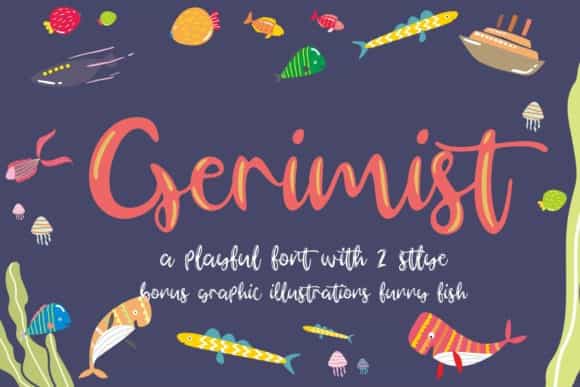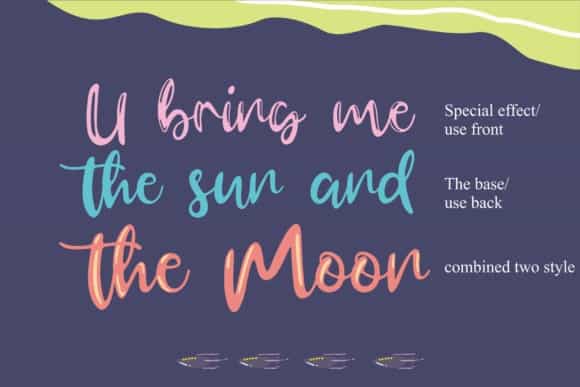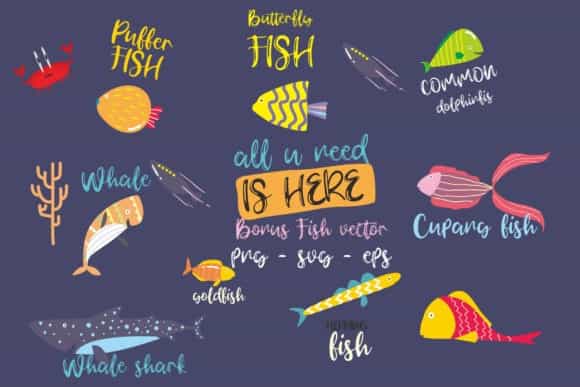
Gerimist is a brush font that was handwritten script. The original flow and style of the font makes it just right for all kinds of printed materials, logos as well as branding, invitations and stationery, wedding designs easily recognizable on social media posts or advertisements.